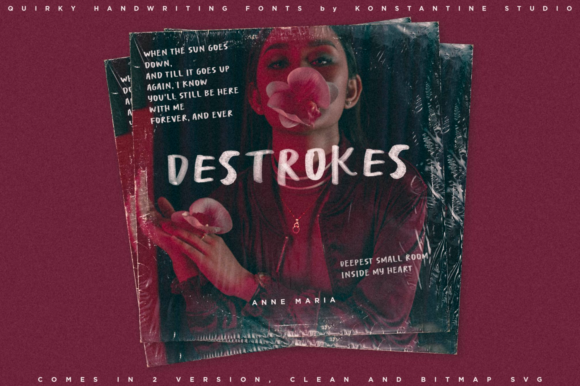
Get Ready to Unleash Your Creativity with Destrokes Font
Have you ever been brainstorming ideas for a project, and suddenly, a spark of inspiration hits you? Maybe it’s the perfect phrase, the ideal color palette, or the exact font that brings your design to life. For many designers, this moment is what makes all the hard work worth it.
Meet Destrokes Font, a cool and friendly display font designed to elevate your designs and make them stand out. Perfect for t-shirts, sportswear, logos, advertisements, clothing, and more, Destrokes Font is the ultimate tool for creatives looking to add a touch of personality to their work. With its versatility and charm, Destrokes Font is a valuable addition to any designer’s toolkit, offering endless possibilities for expression and innovation.
Destrokes Font Key Features
- Font Family: Destrokes is a unique font family with multiple styles, including bold and regular.
- Unique Characteristics: Destrokes font features a distinctive hand-drawn style with subtle texture and imperfections, giving it a natural and organic feel.
- Font Weight: Destrokes font is available in multiple weights, including light, regular, bold, and extra bold, making it suitable for a wide range of design applications.
Destrokes Font Review
I recently had the chance to work with the Destrokes font, and I must say it’s been an interesting experience. The font has some great qualities that make it stand out.
- ✨ Unique texture: The Destrokes font has a distinctive texture that adds a lot of character to any design. It’s perfect for creating a vintage or distressed look.
- ✨ Versatility: Despite its textured appearance, the font is surprisingly versatile and can be used for a wide range of projects, from logos to typography-based art.
- ✨ Easy to read: Despite the texture, the font is still relatively easy to read, making it a great choice for designs where legibility is important.
- ⚠️ Limited character set: One of the main limitations of the Destrokes font is its limited character set. This can make it difficult to use for projects that require a lot of specific characters.
- ⚠️ Not ideal for small text: Due to its textured nature, the font can become difficult to read when used for small text. This can be a problem for designs where text is small or intricate.
The Destrokes font is a great choice for designers looking to add some texture and character to their work. While it has some limitations, its unique texture and versatility make it a valuable addition to any design arsenal. With a little creativity and planning, the Destrokes font can be used to create some truly amazing designs.
Tips for Getting the Most Out of Destrokes Font
Destrokes Font is ideal for creating bold, eye-catching headlines and titles.
Use it to add a touch of elegance and sophistication to your designs.
Experiment with different font sizes and styles to create a unique look.
Destrokes Font is commonly used in:
Marketing materials, such as brochures and flyers.
Wedding invitations and event materials.
Corporate branding and identity materials.
Alternatives to Destrokes Font for Designers
The Great Vibes Font is a modern, elegant script font that is perfect for creating a sophisticated and stylish look. It is ideal for use in branding, advertising, and editorial design. Great Vibes Font is a great alternative to Destrokes Font as it offers a similar level of sophistication, but with a more elegant and refined feel.
Comparison: Great Vibes Font has a more refined and elegant feel compared to Destrokes Font, making it a better choice for high-end branding and advertising projects.
The Alex Brush Font is a beautiful, handwritten script font that is perfect for creating a personal and emotive look. It is ideal for use in invitations, wedding stationery, and other creative projects. Alex Brush Font is a great alternative to Destrokes Font as it offers a similar level of personal touch, but with a more elegant and refined feel.